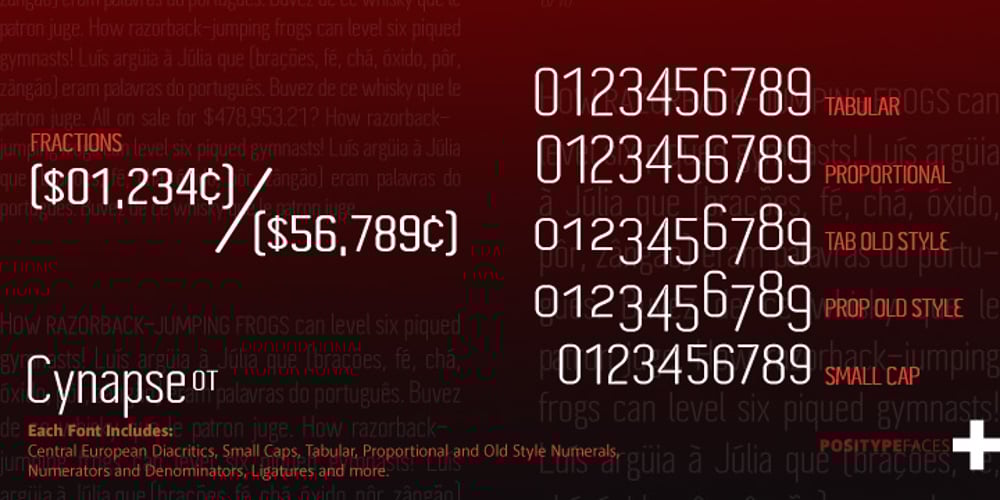
Cynapse OT Font Family was designed by published by Positype. Cynapse OT contains 4 styles and family package options. Several years ago I was faced with a project that required very small type to be used in a directory. In general, there was a need for a lot of ‘fine print’. Faced with this, all of the tests I was making with existing faces were producing too much bleed of the individual glyphs…Cynapse was born. It evolved into this pseduo-techy looking type that standardized and glorified the ink trap (the small, tiny allowances of white space that reduces the amount of ink hitting the page, and in effect, reducing the appearance of bleed). The results was promising. The new OT version contains additional OpenType features that include expanded ligature sets, fractions, 5 sets of numerals as well as small caps and Central European diacritics.